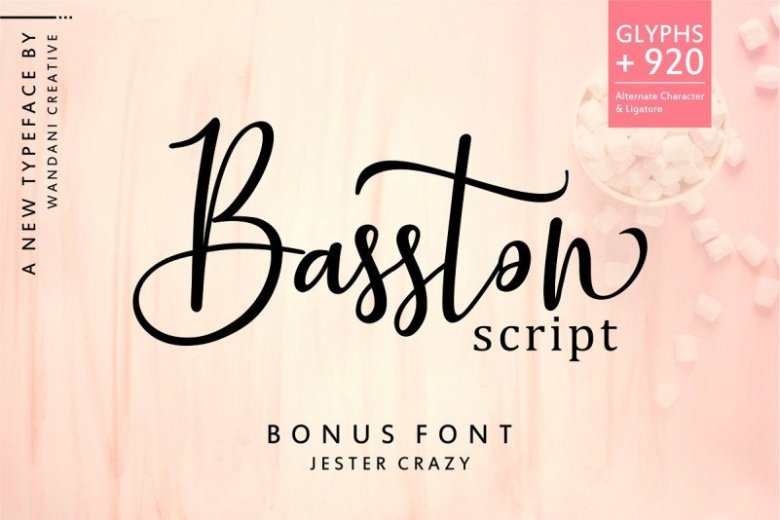
Basston Script Font Duo
Say hello to the Basston Font! This is everything you need to get your brand the kick start it needs. It’s calligraphy style makes it a perfectly versatile font for any occasion! It is designed and shared by wandani.creative. “Basston Script” is a beautiful script font, both elegant and charming in look and design. This font comes with over 920 alternate characters and ligatures, so you can create the most stellar looking calligraphy designs simply and easily. It is perfect for branding, packaging design, etc.